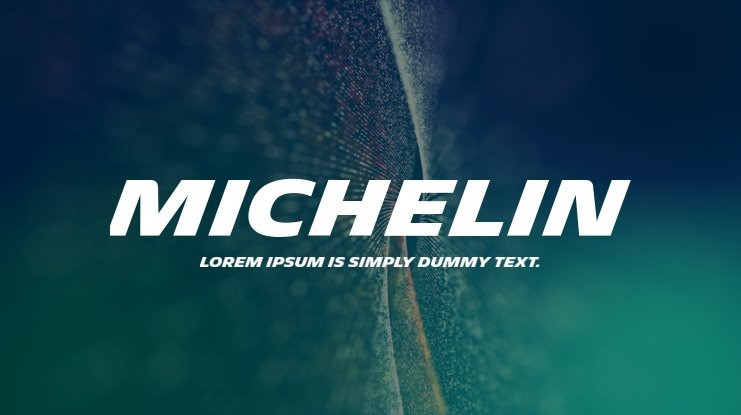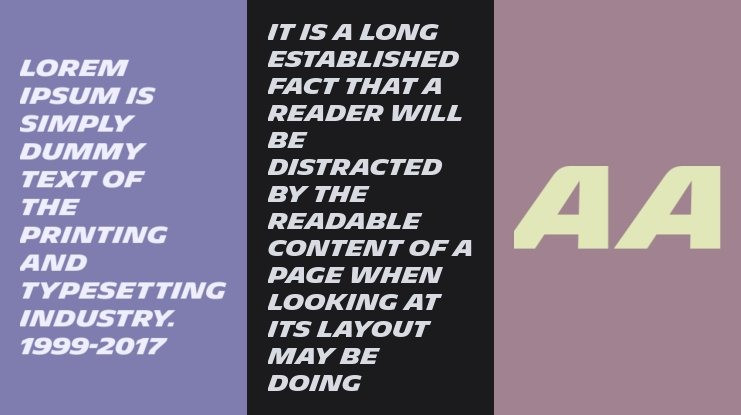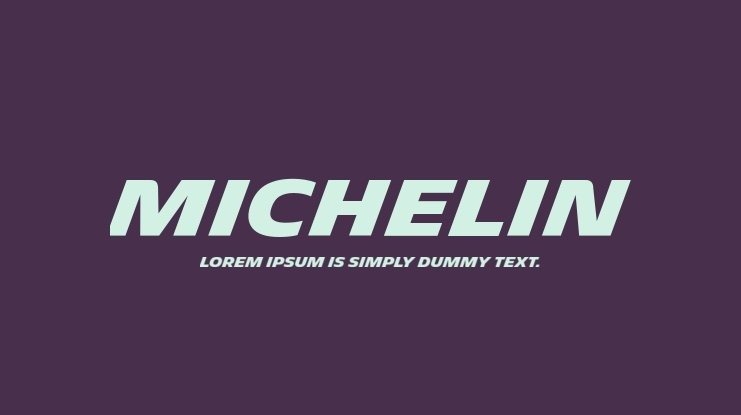
Michelin Font. Perfectly fit for branding, logo, wedding things, greeting cards, fashion, lookbook, marketing promotion, anytime you want to look fancy elegant but still casual.
Michelin Font
| Designer Name: | Mathieu Reguer |
| Classification: | Display Fonts, Sans Serif Fonts |